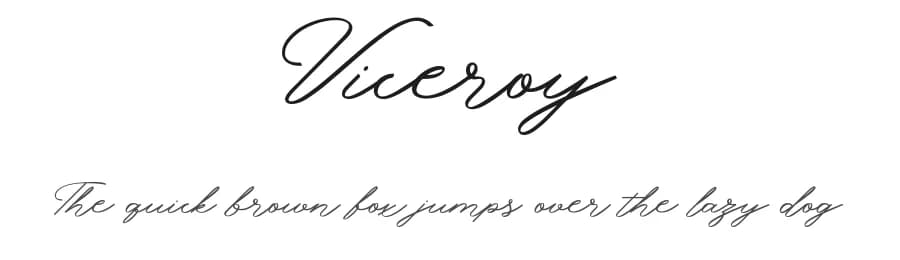
About Viceroy Font
Viceroy is a stylish modern calligraphy font with casual chic flair. It is perfect for branding, wedding invites and cards, and maybe for red wine label.
Viceroy includes full set of gorgeous uppercase and lowercase letters, and numerals, a large range of punctuation . All lowercase letters include beginning and ending swashes, giving realistic hand-lettered style.
Viceroy Font